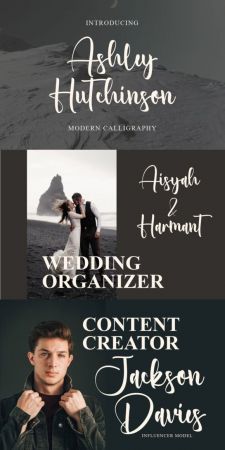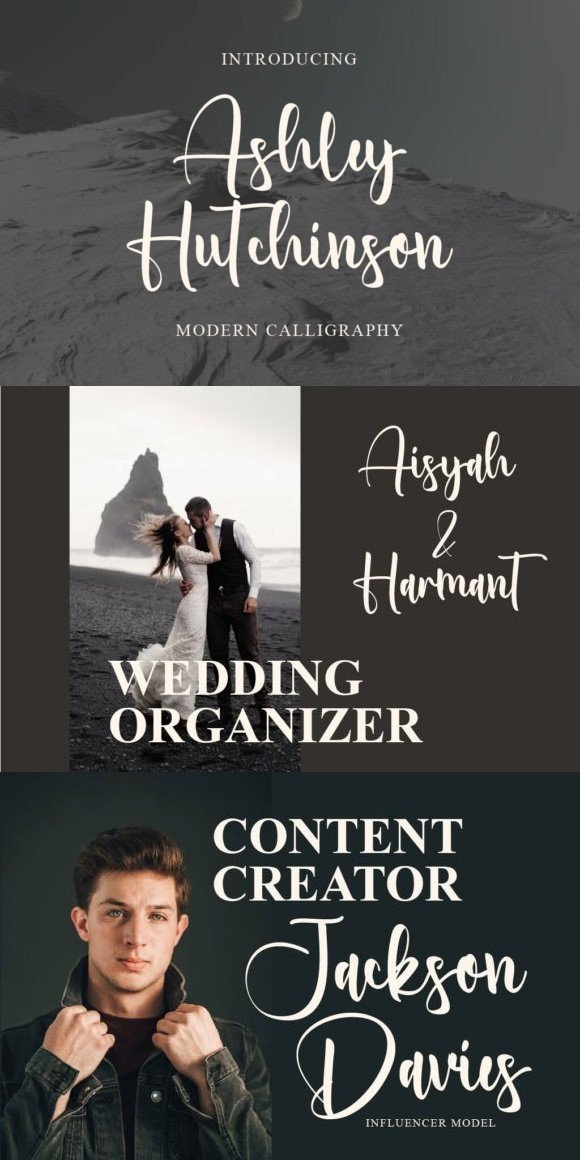
Ashley Hutchinson is a dazzling script font that epitomizes elegance and charm. Its graceful flourishes and intricate details captivate the eye, making it perfect for wedding invitations, branding, and signage. With its timeless appeal and delicate curves, Ashley Hutchinson adds a touch of sophistication to any design project.